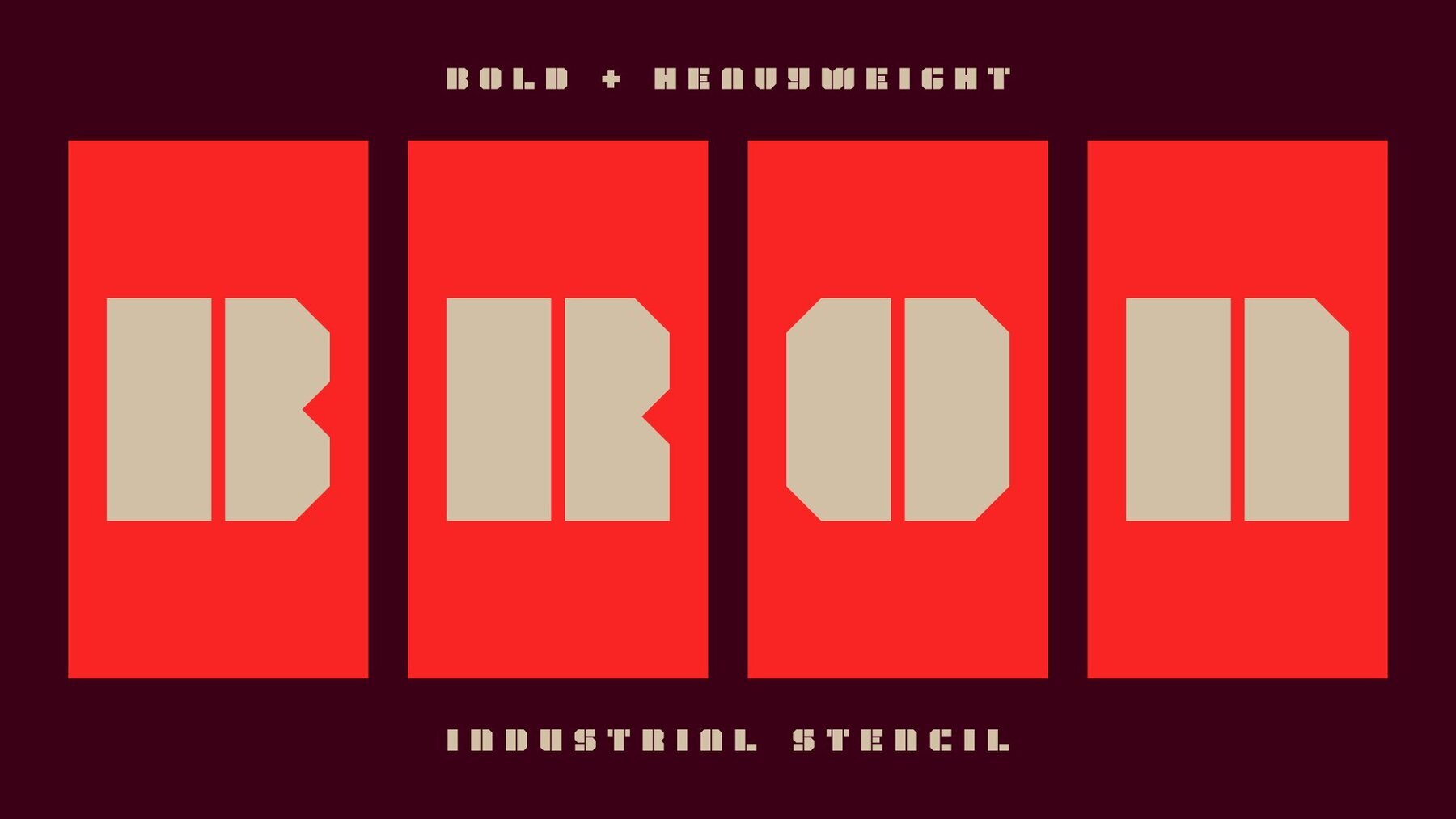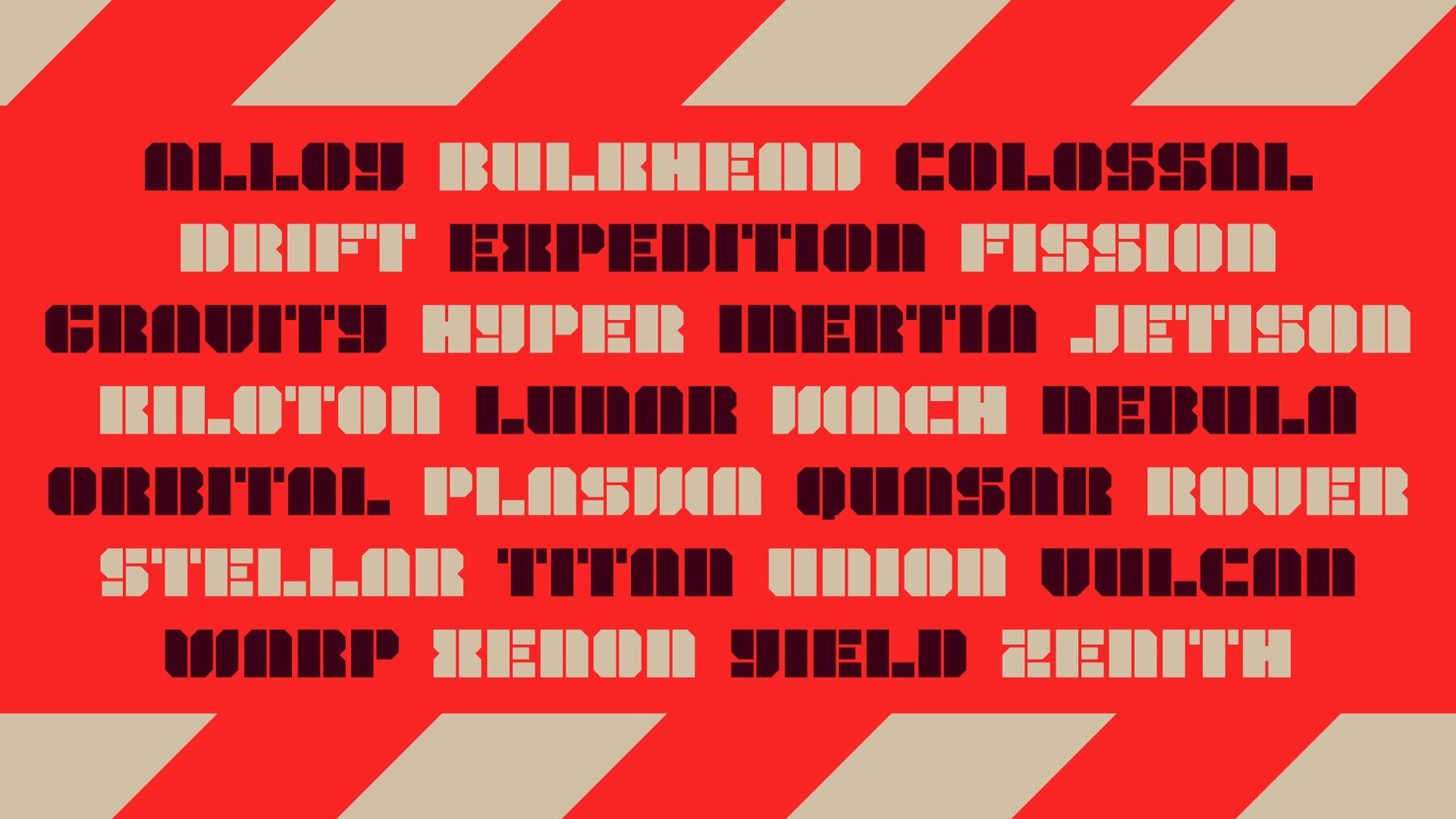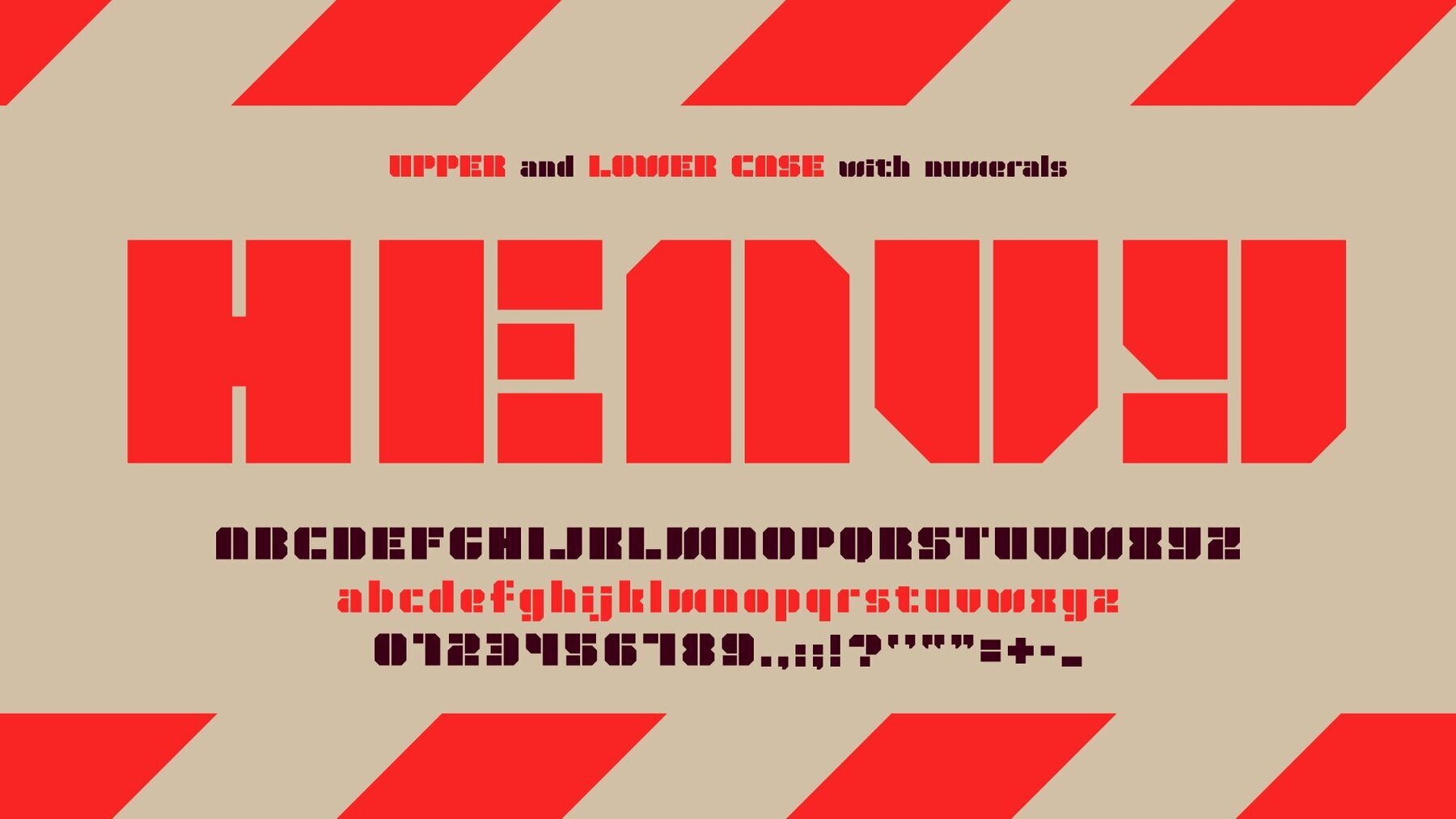
Bron Font
ATF Bron
Bron stands out as a heavyweight industrial stencil font designed for maximum impact. Its robust letterforms feature thick cuts and precise geometry, merging influences of sci-fi technology and raw industrial design. This combination makes Bron ideal for projects that require a strong, mechanical presence and an unmistakable boldness. This font excels in identity design, branding, and editorial headlines where clarity and visual strength are paramount. The distinctive stencil structure lends itself to both modern and utilitarian aesthetics, ensuring your designs command attention while maintaining a clean, professional style.Industrial Stencil Font for Impactful Visuals